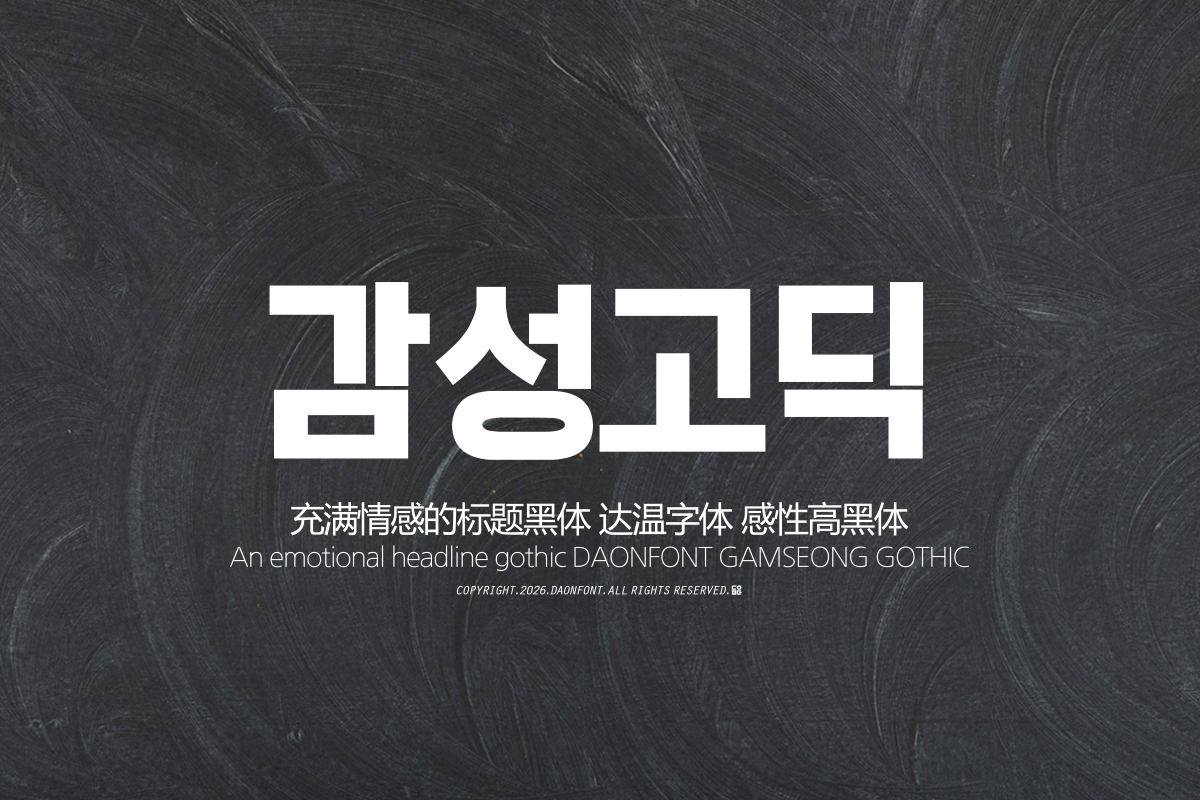
DAON GAMSEONGGOTHIC(B)
DaonFont 'GAMSEONGGOTHIC' is a Gothic typeface designed for displays that conveys a strong impression based on bold and solid strokes. The stable, square letter structure combined with a substantial weight creates a distinct visual presence even with short phrases.